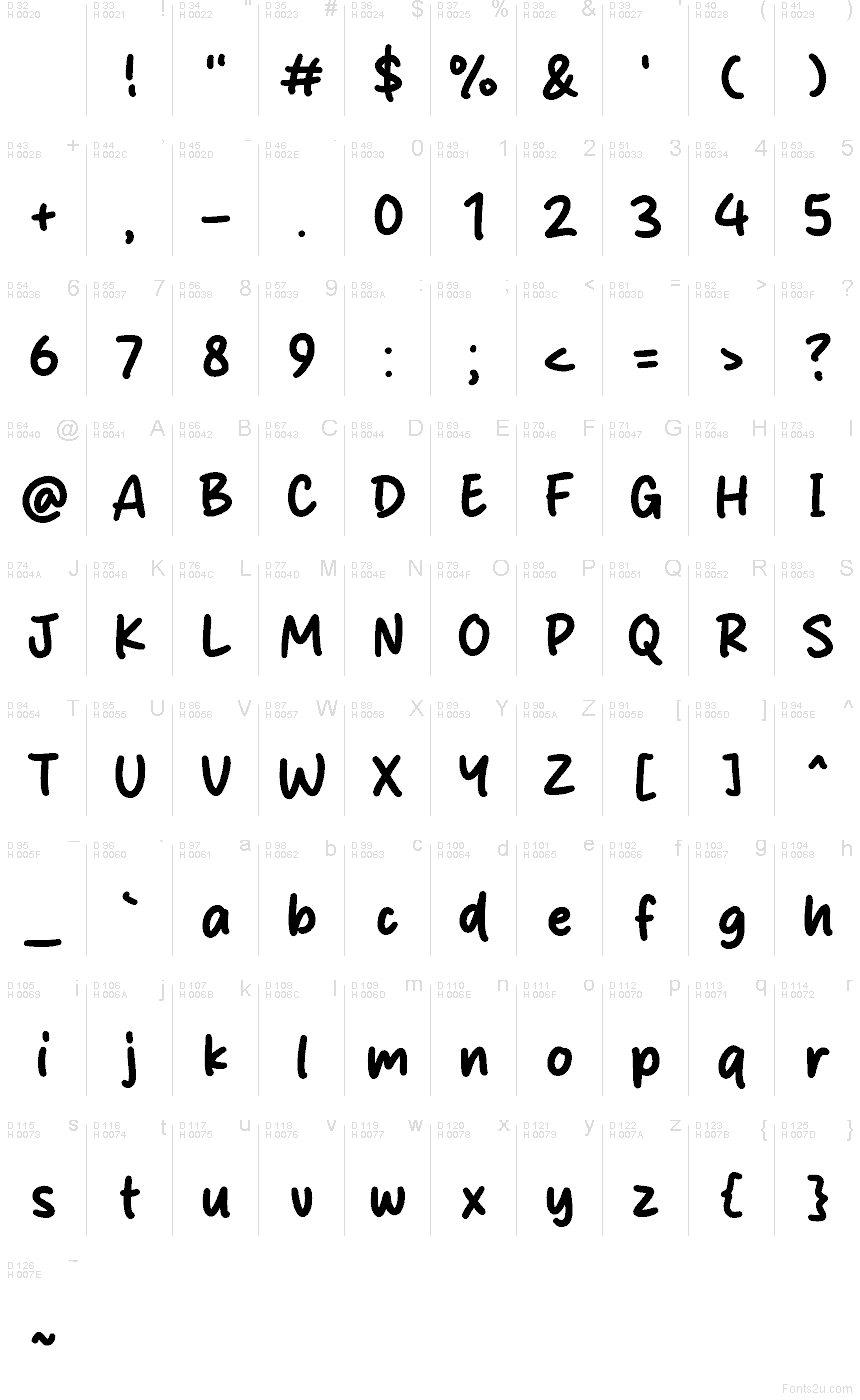
Mirachel
Mirachel font by MJType is a free handwritten typeface that feels like it was drawn with a thick, inky marker. Rounded strokes, soft curves, and a steady rhythm give it that warm, approachable look that feels personal without getting messy. It’s bold enough to stay legible at smaller sizes, yet has a cozy, hand-done character that pulls the eye in on headings and short phrases.
Using Mirachel, this free font shines on kids’ products, cute packaging, quote posts, invitations, logo wordmarks, and friendly website headers. The letters sit close and snug, which adds to its cuddly, casual energy—great when you want copy to feel like a note from a friend. Pair Mirachel with a clean sans serif for body text and let this handwritten star handle the titles, tags, and callouts.